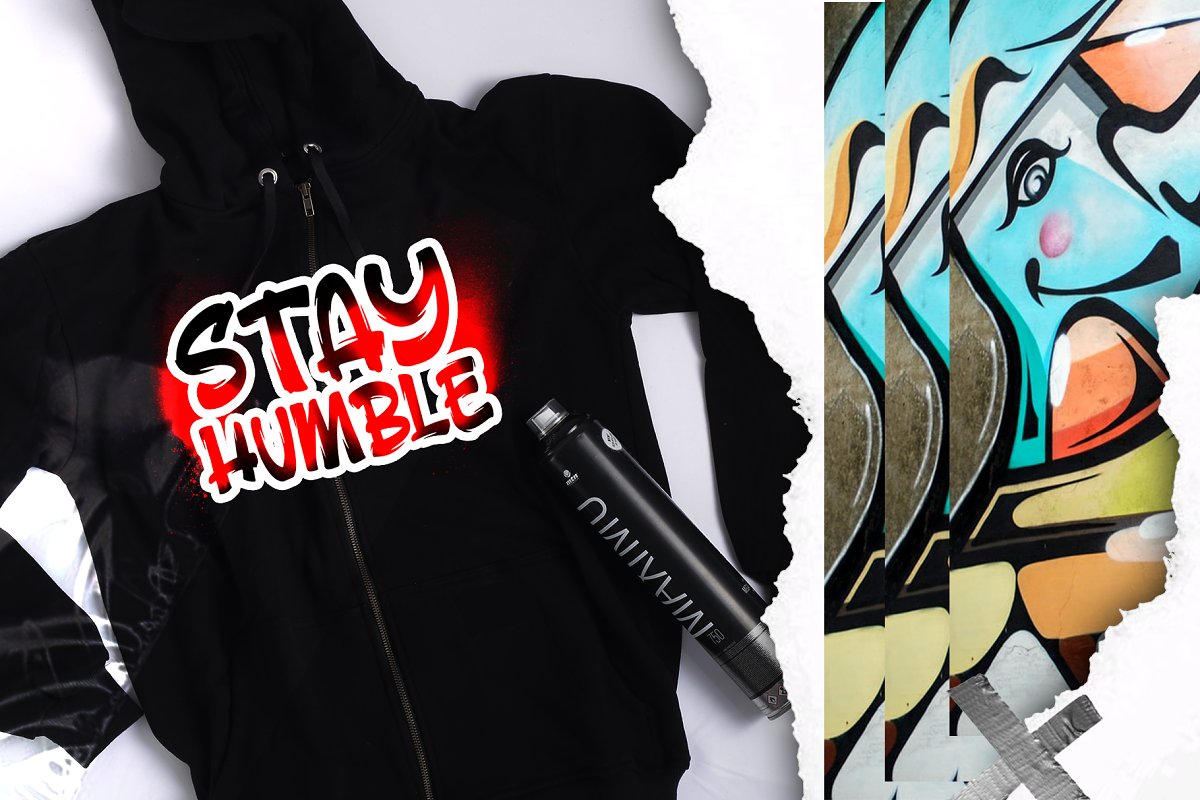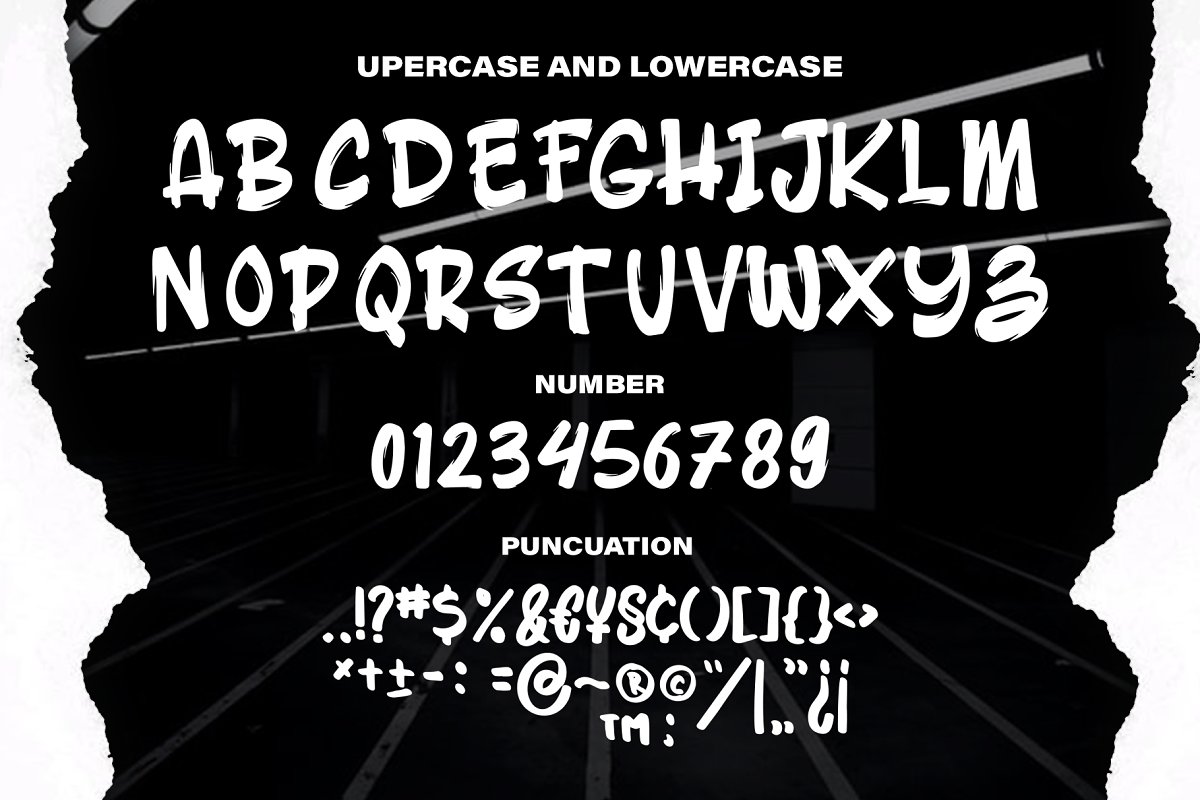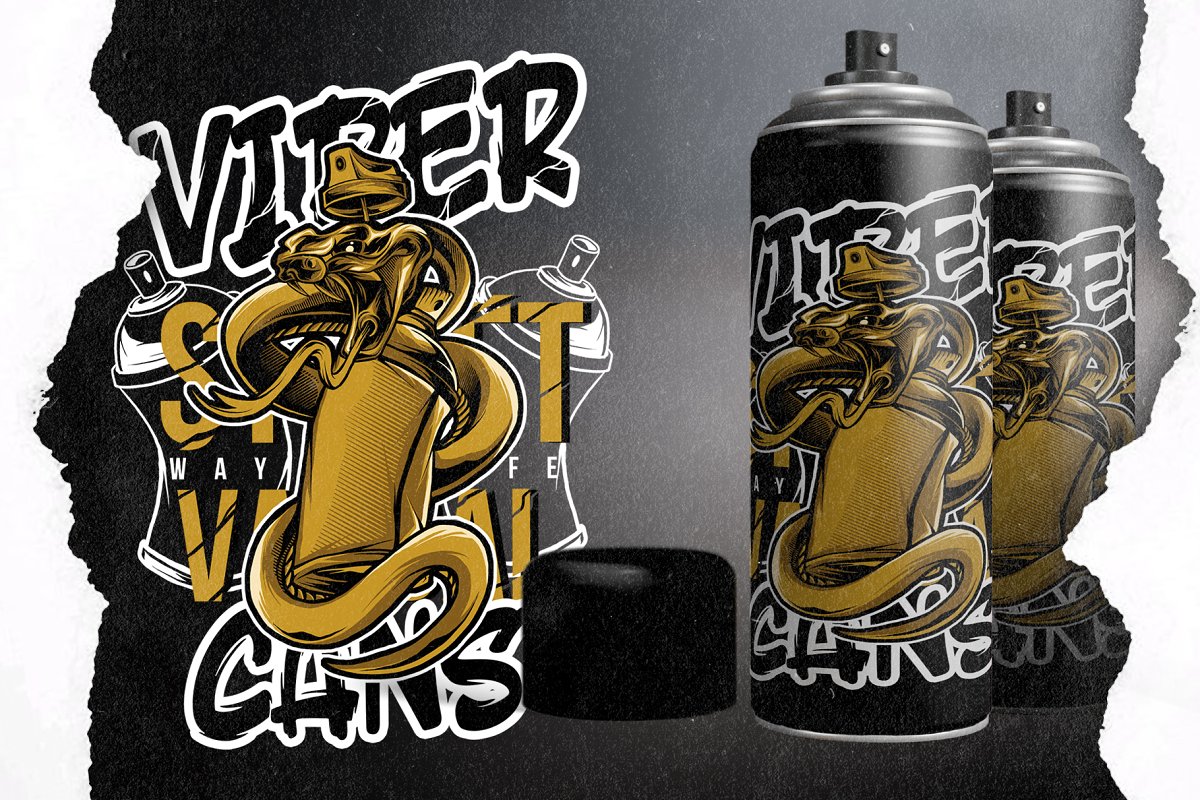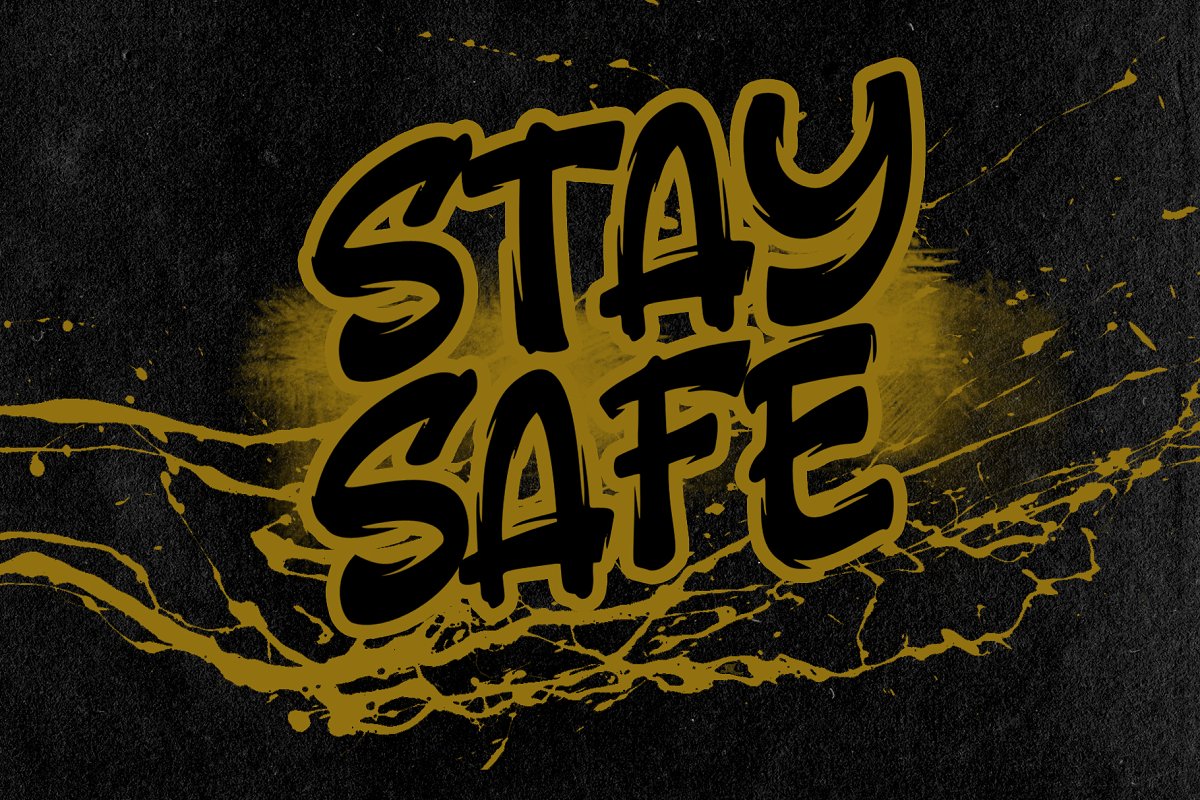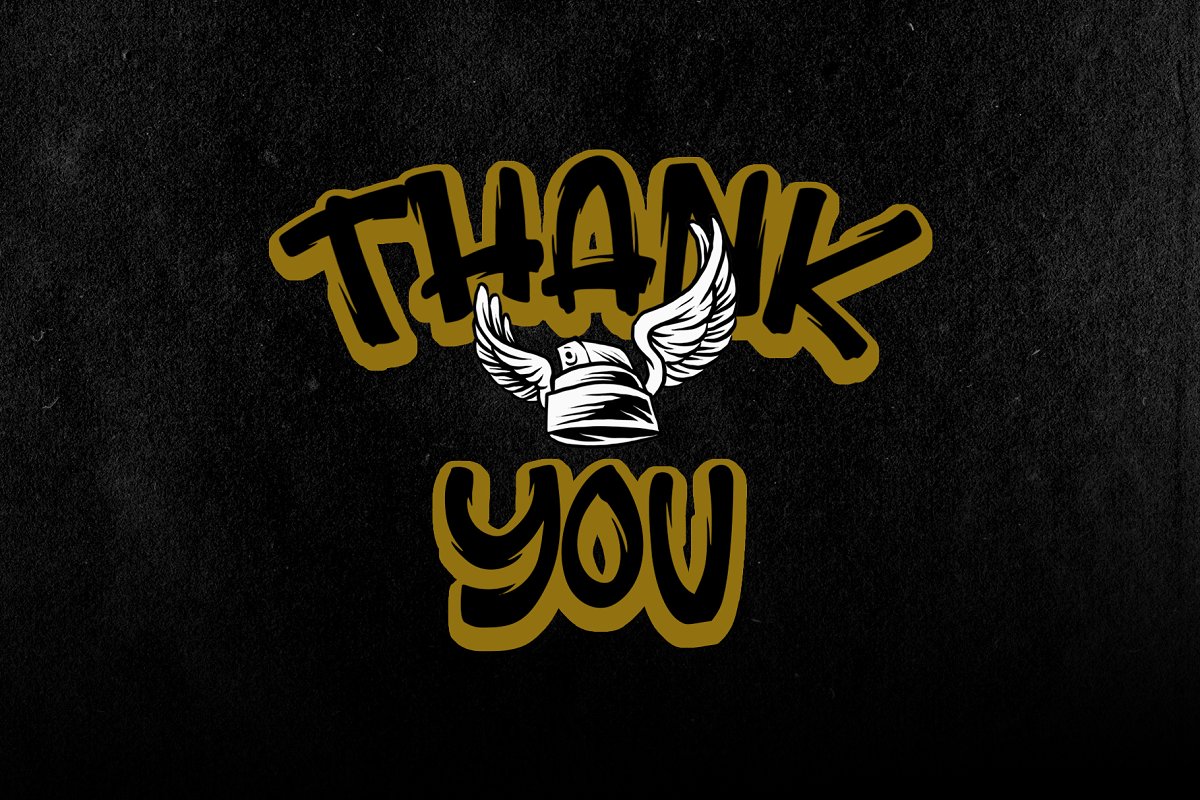
About the GravBOOM GRAFFITI Font
Dansdesign Proudly present our new product GRAVBOOM GRAFFITI FONT This font is made with references to various graffiti artthat I combine and design with my style, GRAVBOOM GRAFFITI FONT are great and usefull for product logo, poster title, headline, packaging, badge, wedding card logo, clothing brand logo,Vintage design and much moreFeatureCharacter Set A-Z (Uppercase & Lowercase)Numerals & PunctuationsCek our brother font : GRAFFITI-FAT-FONT https://creativemarket